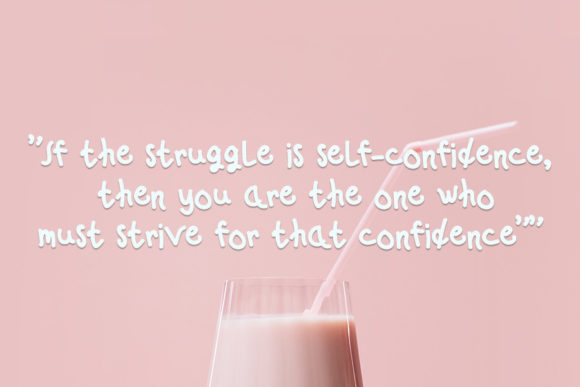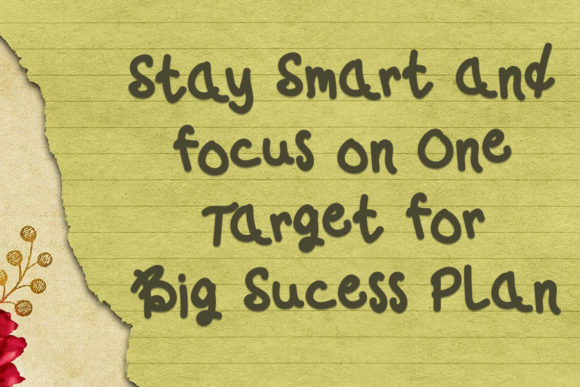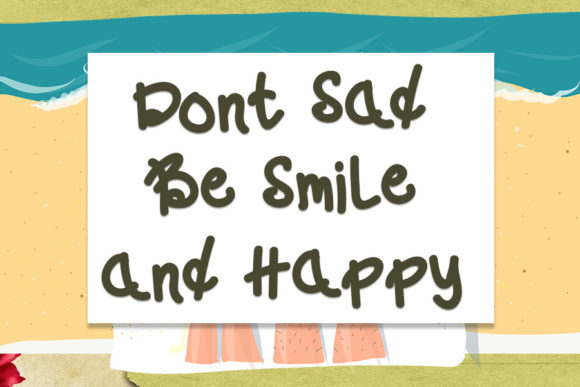
Bring Your Designs to Life with the Fun and Versatile Kids Bubble Font
Remember the excitement of creating with crayons as a child? The world was a blank canvas, full of endless possibilities and the thrill of bringing your imagination to life. As a designer, you know that spark of creativity is just as essential to your work. That’s where the Kids Bubble Font comes in – a simple, yet effective tool to help you add a touch of whimsy and personality to your designs.
This clean display font is perfect for anyone looking to add a playful twist to their work. Its flexibility and neat style make it an excellent choice for a wide range of projects, from children’s books and educational materials to advertising and promotional campaigns. Whether you’re a seasoned designer or just starting out, the Kids Bubble Font is an invaluable addition to your toolkit.
- Unique Characteristics: The Kids Bubble Font features rounded, child-friendly characters with a playful and whimsical design, making it perfect for children’s books, educational materials, and nursery decor.
- Scalability: The Kids Bubble Font is designed to be scalable, meaning it looks great in a variety of sizes, from small text to large headlines, making it a versatile choice for a range of applications.
Designer Review: Kids Bubble Font
Overall, I think the Kids Bubble Font is a delightful addition to any project that requires a playful, childlike feel. Here are some of its strengths and weaknesses.
- The font’s rounded edges and bubble-like shape make it perfect for creating a whimsical atmosphere.
- The font is highly customizable, allowing users to adjust the size, color, and spacing to their liking.
- The font includes a range of glyphs and characters, including numbers, punctuation, and special characters.
- The font may not be suitable for projects that require a more professional or formal tone.
- The font’s rounded edges can make it difficult to read at small sizes or in certain contexts.
Overall, I think the Kids Bubble Font is a fun and creative option for projects that require a playful touch. While it may have some limitations, its versatility and customizability make it a great choice for designers who want to add a bit of whimsy to their work.
The Kids Bubble Font is commonly used in children’s educational materials, party invitations, and social media graphics. It’s also used in branding and marketing materials for kids’ products and services.
To get the most out of the Kids Bubble Font, use it in combination with bright and playful colors, and consider using it in a creative and whimsical way, such as in speech bubbles or thought clouds.
Alternatives to Kids Bubble Font for Designers
Great Vibes is a modern, handwritten font that conveys a sense of playfulness and friendliness. It’s ideal for use in children’s products, entertainment, and social media graphics. Great Vibes is more versatile and elegant compared to Kids Bubble Font, making it suitable for a wider range of applications.
Pacifico is a beautiful, elegant script font that works well for headings and titles. It’s perfect for use in branding, packaging, and advertising. Compared to Kids Bubble Font, Pacifico is more sophisticated and refined, making it suitable for more mature audiences.